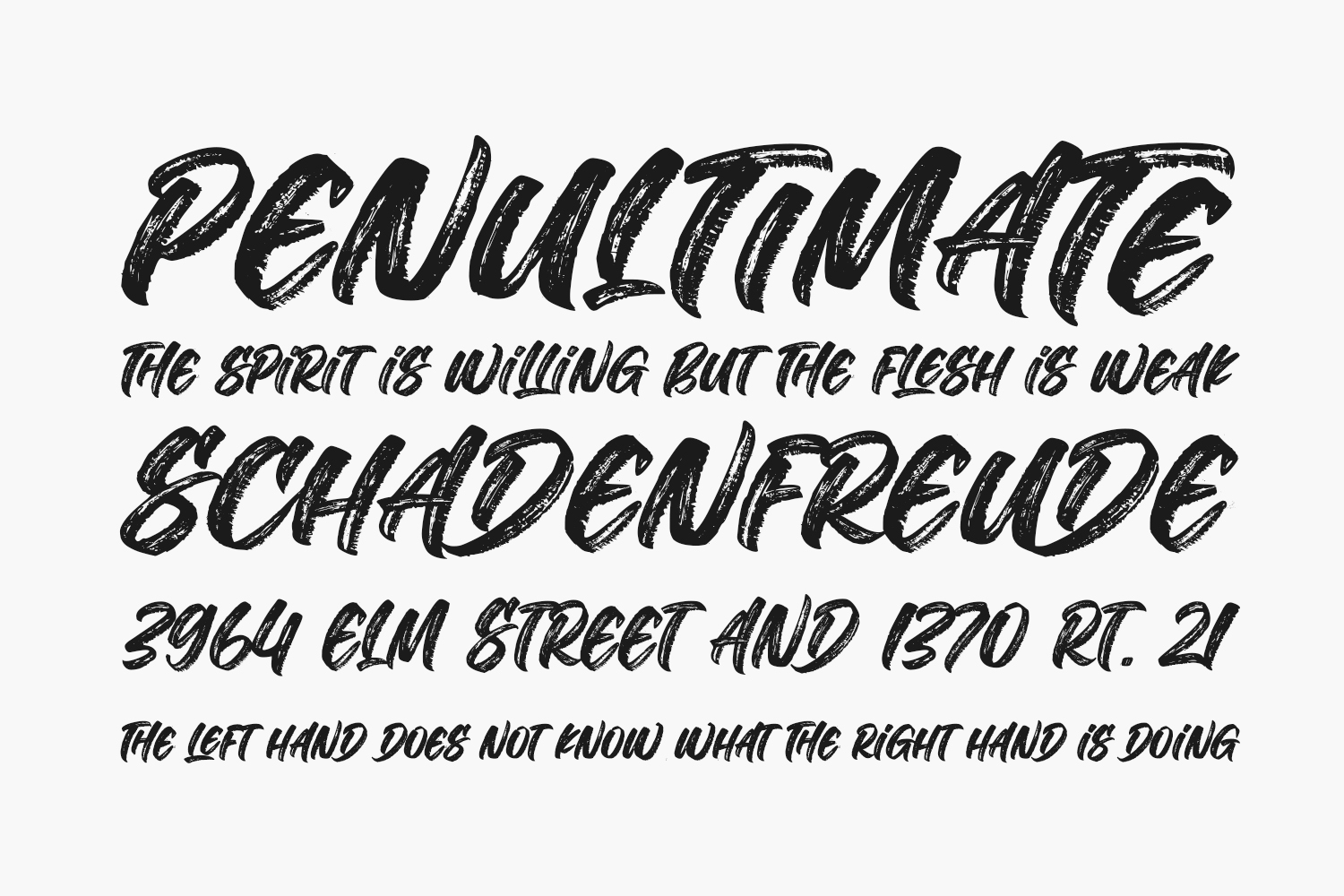
The Deliver Free Font is a cool, brushed, and urban styled display font. This font is suitable for designs such as t-shirts, sportswear, logos, advertisements, clothing, and more. The Deliver Free Font was designed by Subectype & Orenari and is free for personal use only. Please purchase the full version for commercial use.
Designed by Subectype & Orenari